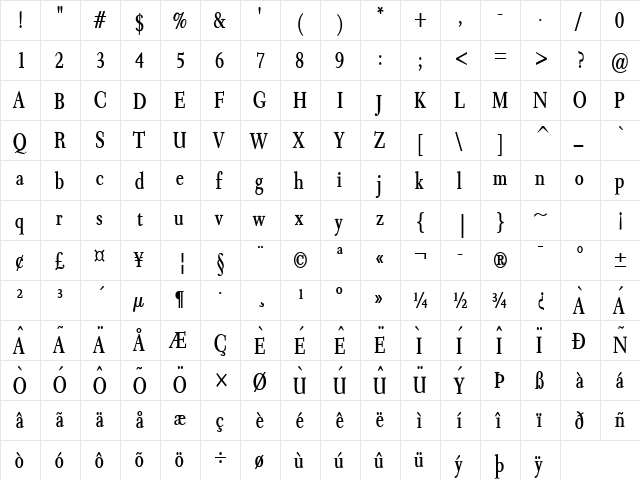
Transit Condensed Bold
Design Context for Transit Condensed Typeface
Transit Condensed is a composed and adaptable typeface that performs quietly and consistently across a wide range of design contexts. The heavy weight commands attention and anchors typographic hierarchies. The condensed width makes it efficient for tight spaces without sacrificing legibility.